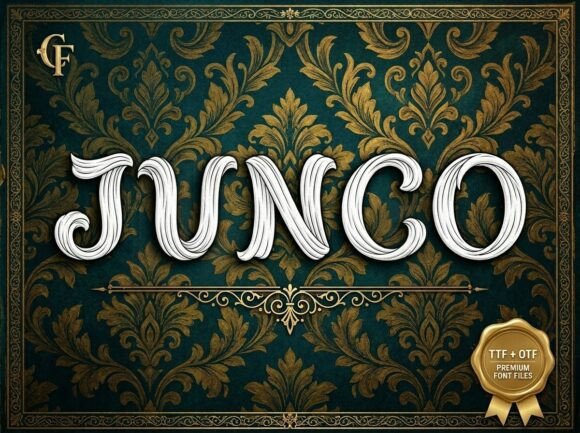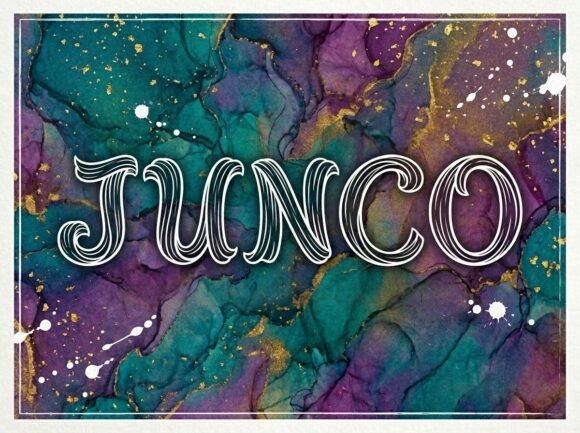
Introduction to Junco Font
Find your flow with Junco, an expressive display typeface that captures a “fluid-and-graceful” soul.
This font features bold, rhythmic letterforms meticulously constructed from flowing ribbon-like paths and intricate line work that suggests continuous motion With its artistic weight and poetic personality, Junco is the premier choice for independent creative agency branding, artisanal perfume packaging, modern dance event logos, and high-impact “smooth-and-sophisticated” social media headers.
Key Features of Junco Font
Why Choose Junco Font?
Junco Font offers exceptional quality and versatility, making it a valuable addition to your design toolkit. Whether you’re creating for personal projects or commercial use, Junco Font delivers professional results.